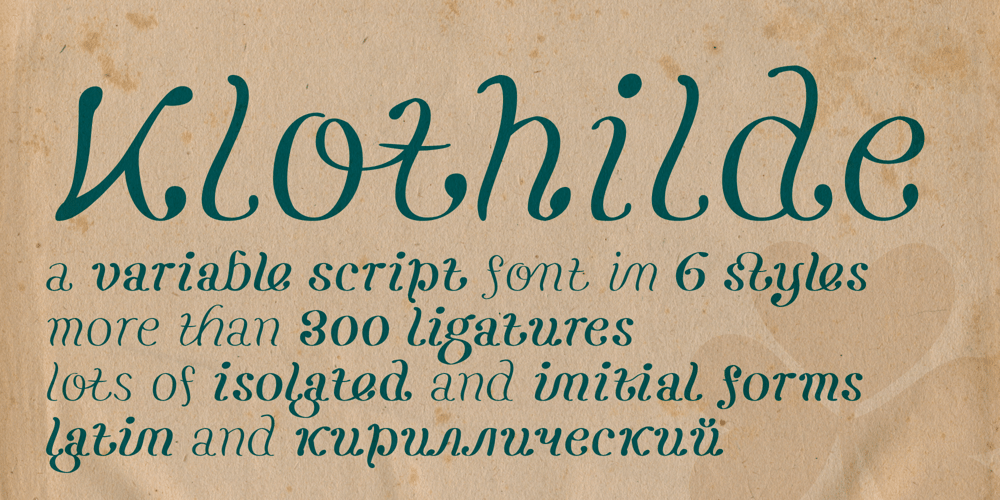
Klothilde Font Family was designed by Werner Eschmann and published by Fontroll. Klothilde contains 7 styles and family package options. Klothilde is a handwriting font which came to life in one of my doodling sessions (I must admit I still doodle with pen and paper). The idea was to create a font which resembles writing with a quill on paper with exaggerated ball terminals. Sometimes there is too much ink which makes the letters fat and the strokes uneven. The paper soaks the ink resulting in blurred line crossings. The form gets blurry. On the other hand, when the quill runs out of ink the stroke gets thinner looking like the light version of Klothilde. In order to emulate the different looks, I created six fonts with a common skeleton but different appearance which can be altered seamlessly by using the Variable Fonts technology (e.g. in latest Adobe apps or CorelDRAW Graphics Suite) along the Weight and Blurred sliders. But even without, Klothilde can be used even in longer copy. Use it from 18 pt upwards, flush left with tight leading and intersecting ascenders and descenders. Due to extensive manual kerning, it gives your text an even colour.To my knowledge, Klothilde is one of the first script Variable fonts in different weights.No, Klothilde’s letters are not connecting. But I added a whole bunch of connecting ligatures which are simply activated by the ligature feature of your app. Even Microsoft Word can do that. Thus Klothilde comes to life, as it should be expected from a handwriting font. In order to add to variety there are additional glyphs for some critical initial and standalone letters. Repeating letter combinations like nn, mm or rr are avoided by replacing the second letter by an alternative form. All features are activated by the standard ligature feature.Ligatures are available for most European languages, some even in Cyrillic (some special Serbo-Croat letters included and accessible through localization or Style Set 08 features). Romanian comma-accent characters and ligatures are accessible through the OpenType locl feature.For the topping on the cake, I added an alternate ampersand (stylistic set 1) and asterisk (ss04), an alternate Cyrillic b (ss02) and t (ss03), a few fleurons, arrows and a skull (OpenType feature ornm), fractions (frac feature), circled numbers (ss06) and an interrobang (ss07) which result in exactly 900 glyphs in each of the six fonts. There should be enough to play with. Should you be missing a special character, do give me a hint.